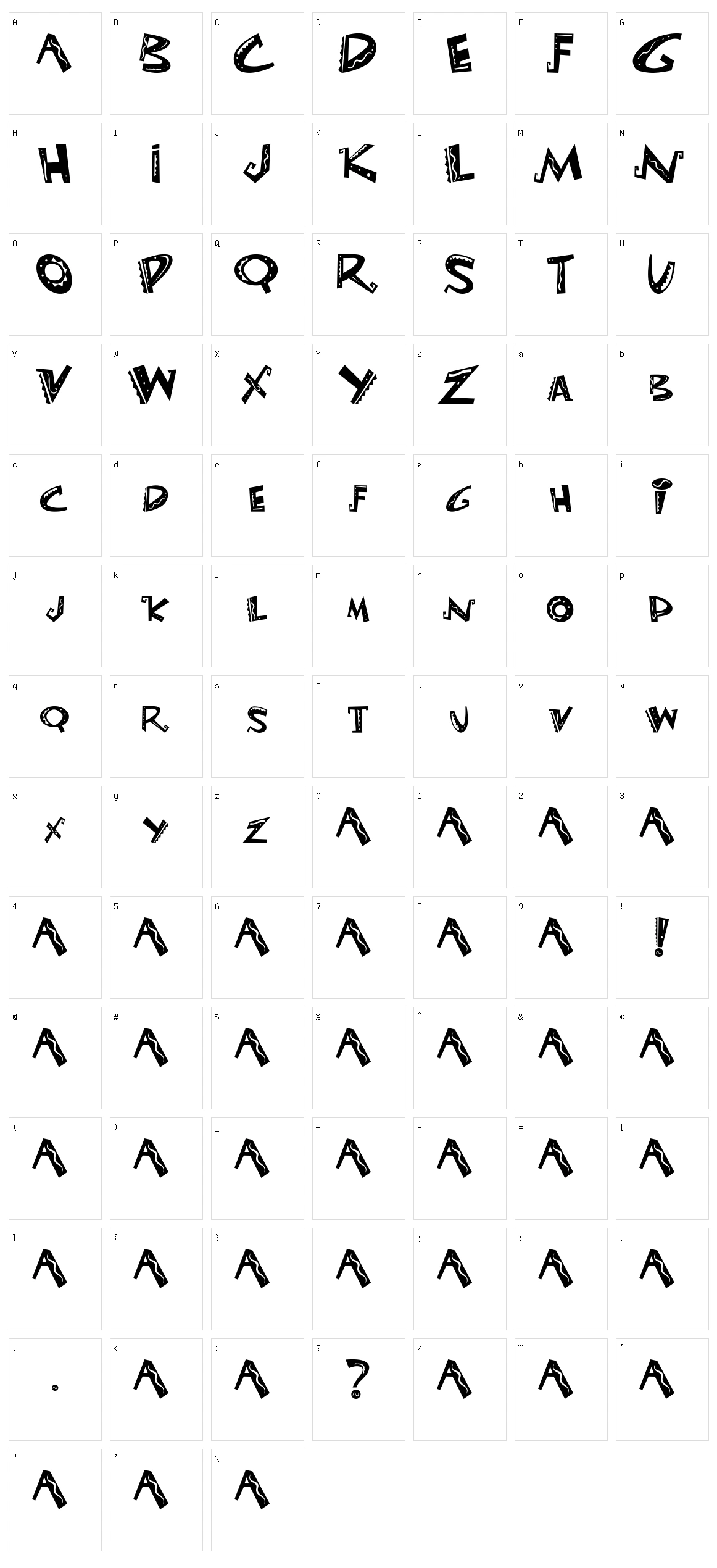
The free font Las locuras del emperador is carefully designed by Robert Velásquez Aranda, showcasing a thoughtful balance of creativity and usability and falls under the Mexican font style. When you download the ZIP file, it contains only 14.47 KB of font files, making it lightweight and quick to download. Please review the license details below to understand permitted usage and distribution rights. If license information is not available, we recommend using this font for personal projects only or contacting the author directly for commercial usage permissions.